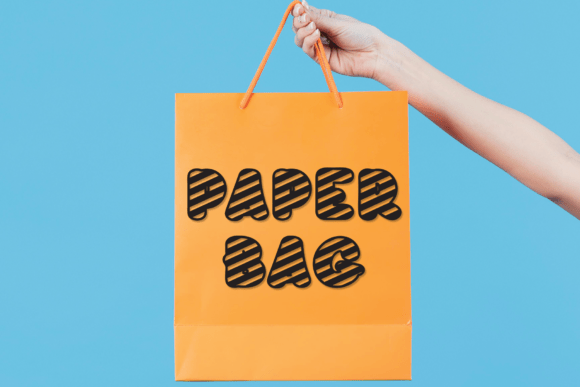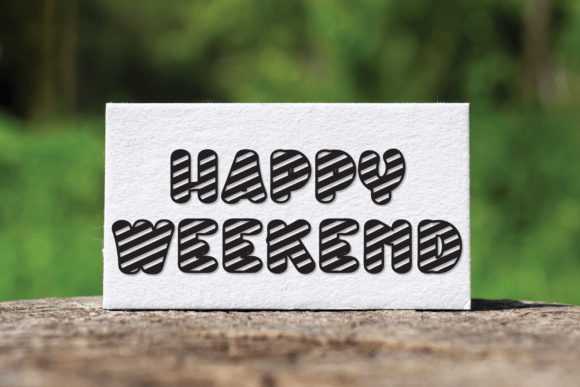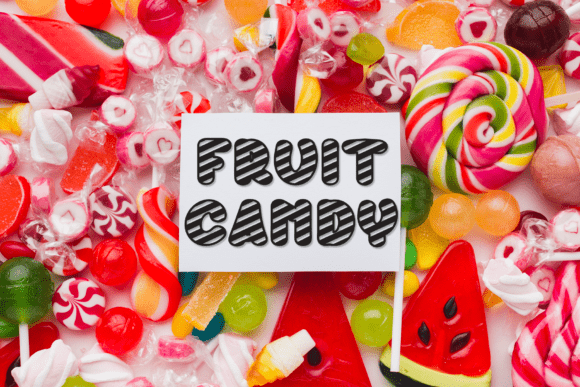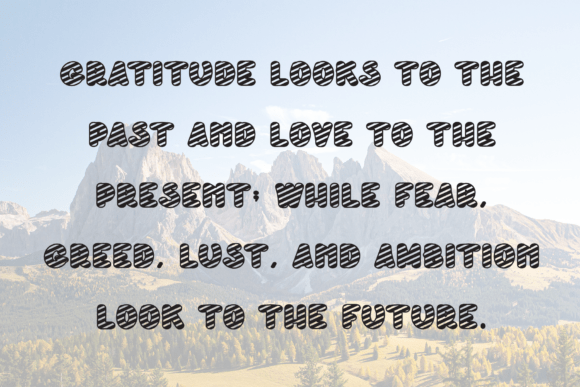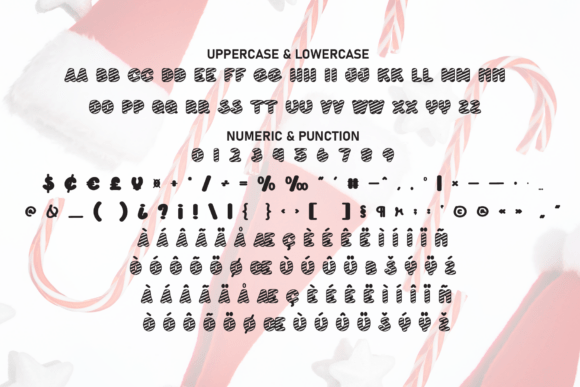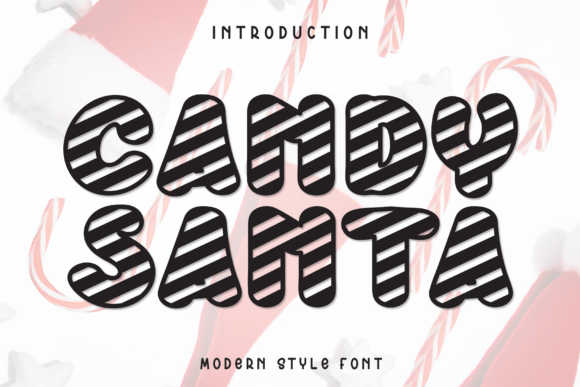
Introducing Candy Santa Font: The Sweetest Addition to Your Design Collection
Are you tired of using the same old fonts in your designs? Do you want to add a touch of magic and whimsy to your projects? Look no further than Candy Santa Font, the latest and most adorable font to hit the market. Our font is designed to provide you with a unique and extraordinary experience, perfect for a wide range of creative projects.
What Makes Candy Santa Font So Special?
Candy Santa Font is not just any ordinary font. It’s a carefully crafted, highly legible, and stunningly beautiful font that’s perfect for a variety of applications, including wall displays, wedding invitations, social media post logos, advertisements, product packaging, product designs, labels, photography, watermarks, invitations, stationery, and any project that requires tasteful handwriting.
As a designer or crafter, you know how important it is to have a font that’s versatile, easy to use, and visually appealing. Candy Santa Font checks all these boxes and more. Its unique and playful style is sure to capture the attention of your audience and leave a lasting impression.
What You’ll Get with Candy Santa Font
With Candy Santa Font, the design possibilities are endless. Here are just a few ideas to get you started:
- Wall displays: Create eye-catching wall displays for events, parties, or exhibitions.
- Wedding invitations: Add a touch of whimsy and romance to your wedding invitations and stationery.
- Social media post logos: Create engaging and shareable social media content with custom logos and graphics.
- Advertisements: Stand out from the crowd with unique and attention-grabbing advertisements.
- Product packaging: Add a personal touch to your product packaging and make it more memorable.
- Product designs: Create stunning product designs that showcase your brand’s personality.
- Labels: Design custom labels for your products or gifts.
- Photography: Add a touch of magic to your photographs with custom watermarks and overlays.
- Invitations: Create beautiful and unique invitations for parties, events, or special occasions.
- Stationery: Design personalized stationery, including greeting cards, thank-you cards, and more.
Why Choose Candy Santa Font?
So, why choose Candy Santa Font over other fonts on the market? Here are just a few reasons:
- Unique and playful style: Candy Santa Font is unlike any other font on the market, with its whimsical and eye-catching design.
- Versatile: This font is perfect for a wide range of design projects, from digital to print.
In conclusion, Candy Santa Font is the perfect addition to your design collection. With its unique and playful style, high-quality file, and ease of use, this font is sure to take your designs to the next level. Whether you’re a designer, crafter, or DIY enthusiast, Candy Santa Font is a must-have font that will provide you with an extraordinary experience. So why wait? Get your hands on Candy Santa Font today and start creating amazing designs!